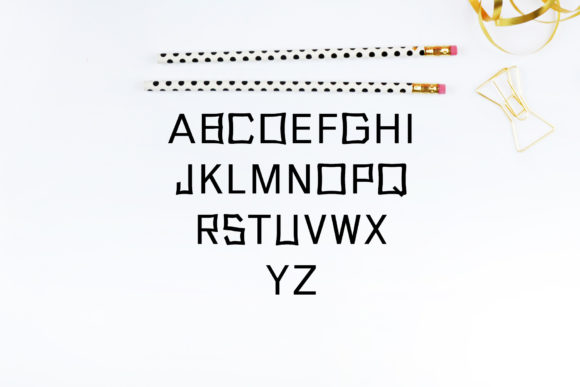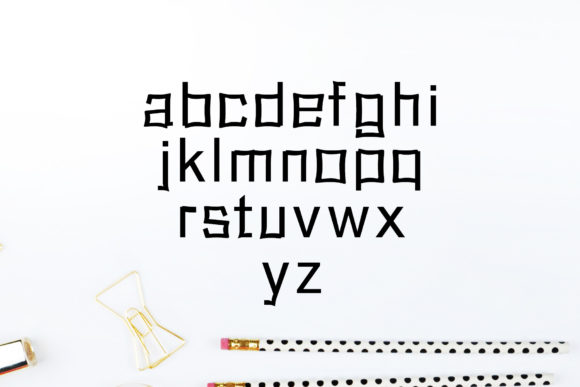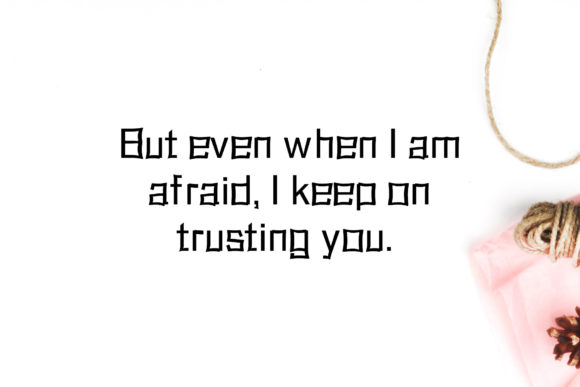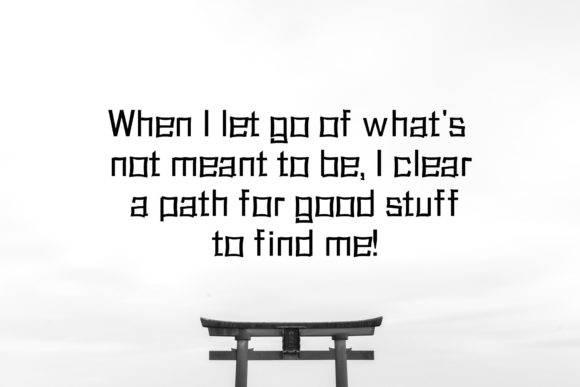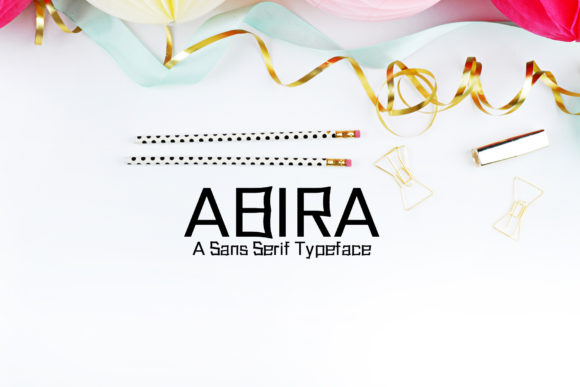
Discover the Unique Charm of Abira Font: Elevate Your Designs with its Trendy and Cool Style
In the world of typography, fonts play a crucial role in conveying the tone and personality of a design. For designers and crafters looking to add a touch of elegance and sophistication to their creations, Abira Font is an excellent choice. This trendy and cool display font has been making waves in the design community, and for good reason. In this article, we’ll dive into the distinct style of Abira Font and explore its endless possibilities for creating stunning wedding invitations, beautiful stationery art, eye-catching social media posts, and more.
The Distinct Style of Abira Font
Abira Font boasts a unique and captivating style that sets it apart from other fonts. Its distinct characteristics make it an ideal choice for designers who want to add a touch of personality to their designs. With Abira Font, you can create designs that are both modern and timeless, making it perfect for a wide range of projects.
Abira Font is incredibly versatile, making it suitable for various design applications. Here are some ideas to get you started:
- Wedding Invitations: Create gorgeous wedding invitations that set the tone for the big day. Abira Font’s elegant and sophisticated style makes it perfect for formal and informal wedding designs.
- Stationery Art: Add a touch of personality to your stationery art with Abira Font. From greeting cards to thank-you notes, this font is sure to make your designs stand out.
- Social Media Posts: Create eye-catching social media posts that grab attention with Abira Font. Its trendy and cool style makes it perfect for fashion, beauty, and lifestyle brands.
- Branding and Packaging: Use Abira Font to create stunning brand identities and packaging designs that reflect your brand’s personality.
Why Choose Abira Font?
With so many fonts available, why choose Abira Font? Here are a few reasons why designers and crafters love Abira Font:
- Unique Style: Abira Font has a distinct style that sets it apart from other fonts. Its unique characteristics make it an excellent choice for designers who want to add a touch of personality to their designs.
- High-Quality: Abira Font is a high-quality font that is designed to deliver exceptional results. Its clear and crisp lines make it perfect for both digital and print designs.
Tips for Using Abira Font
To get the most out of Abira Font, here are some tips to keep in mind:
- Experiment with Sizes: Abira Font looks great in various sizes, from large headings to smaller text. Experiment with different sizes to find the perfect fit for your design.
- Pair with Other Fonts: Abira Font pairs well with other fonts, making it easy to create stunning font combinations. Try pairing it with a sans-serif font for a modern look or a serif font for a more traditional feel.
- Use it for Headings: Abira Font is perfect for headings and titles. Use it to create eye-catching headings that grab attention and draw the reader in.
Abira Font is a trendy and cool display font that is sure to elevate your designs. Its distinct style and versatility make it an excellent choice for designers and crafters looking to add a touch of elegance and sophistication to their creations. With its endless possibilities and user-friendly interface, Abira Font is a must-have for any designer or crafter looking to take their designs to the next level.